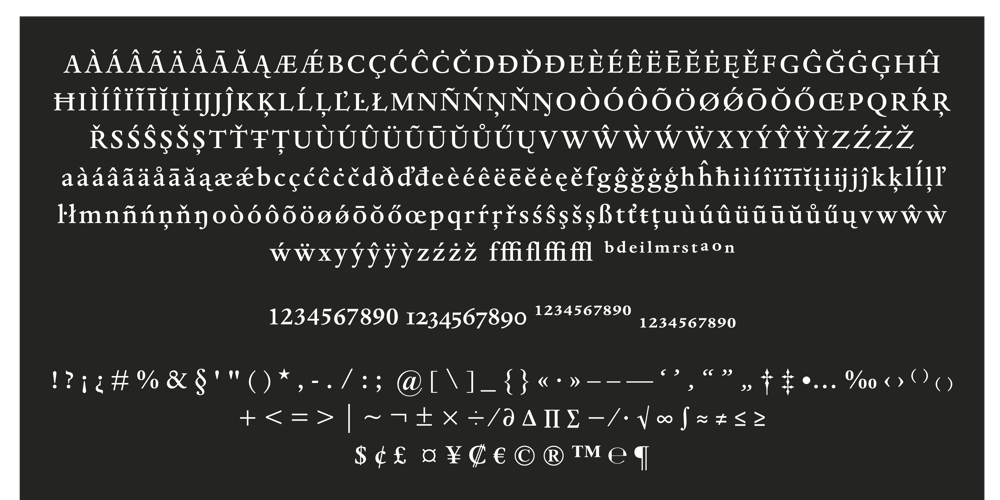
Dante Font Family was designed by Giovanni Mardersteig and published by Monotype. Dante contains 6 styles and family package options. Dante was designed by Giovanni Mardersteig. Mardersteig started work on Dante after the Second World War when printing at the Officina Bodoni returned to full production. He drew on his experience of using Monotype Bembo and Centaur to design a new book face with an italic which worked harmoniously with the roman. Originally hand-cut by Charles Malin, Dante was adapted for mechanical composition by Monotype in 1957. The new digital font version has been re drawn, by Monotype’s Ron Carpenter, free from any restrictions imposed by hot metal technology. The Dante font family was issued in 1993 in a range of three weights with a set of titling capitals. Dante is a beautiful book face which can also be used to good effect in magazines, periodicals etc.Dante® font field guide including best practices, font pairings and alternatives.